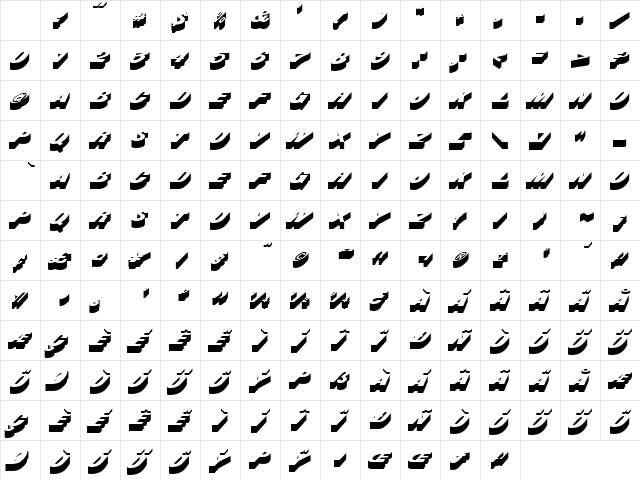
Complete H_BUSKER Regular glyph index. Displaying only characters natively supported by H_BUSKER Regular font.
H_BUSKER is a composed and adaptable typeface that performs quietly and consistently across a wide range of design contexts.